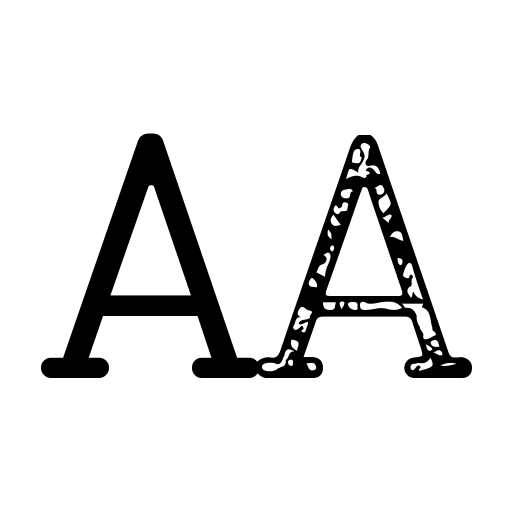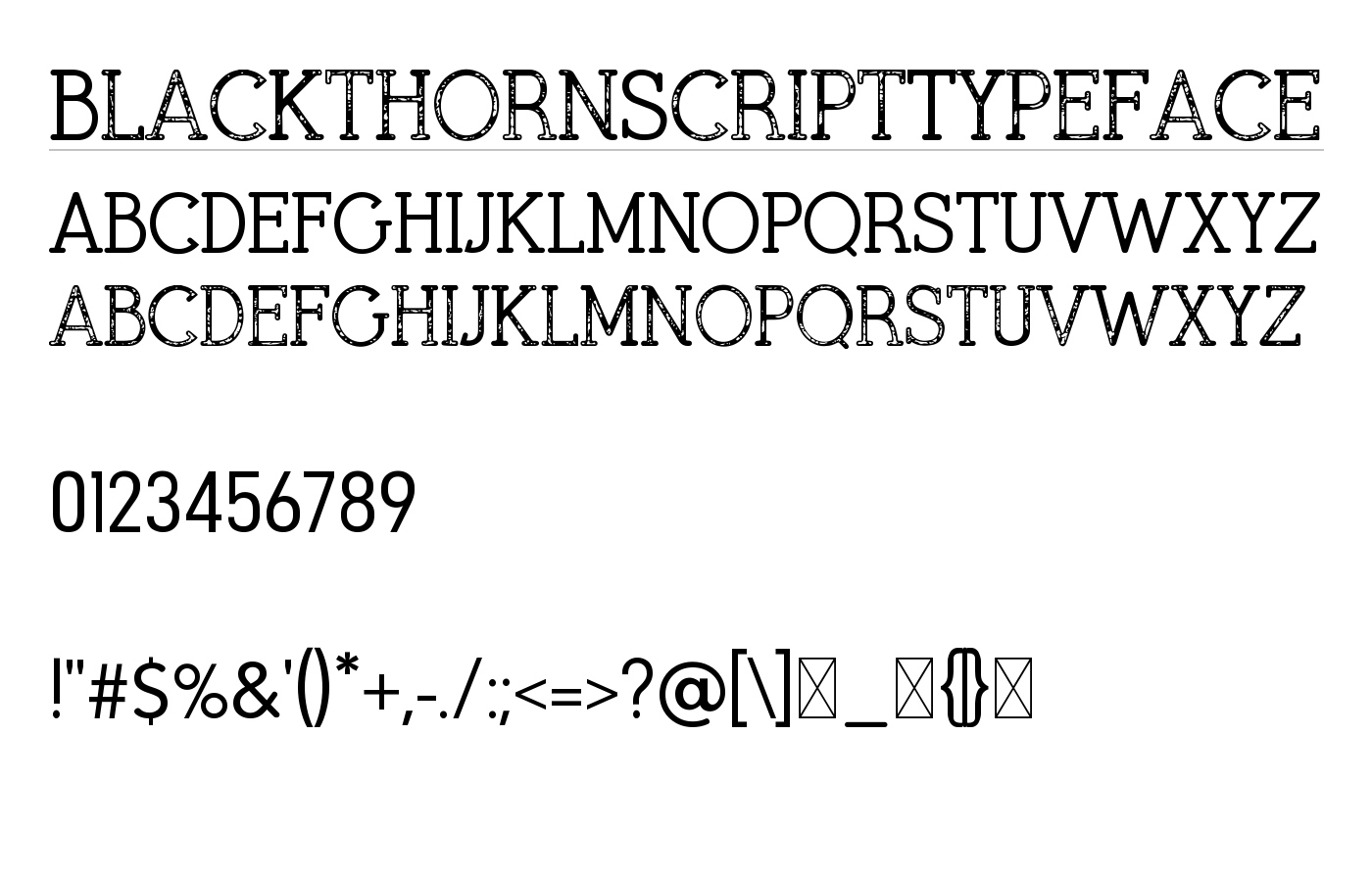
Blackthorn is a unique serif font characterized by its slender, tall letterforms and subtle contrast in stroke weight, lending it an elegant yet slightly vintage feel. Its decorative, dotted style variation adds a whimsical and artistic touch, making it ideal for creative headlines, logos, and designs that require a refined but distinctive look. This font works well in projects where classic sophistication meets a playful, handcrafted charm.
Blackthorn Font